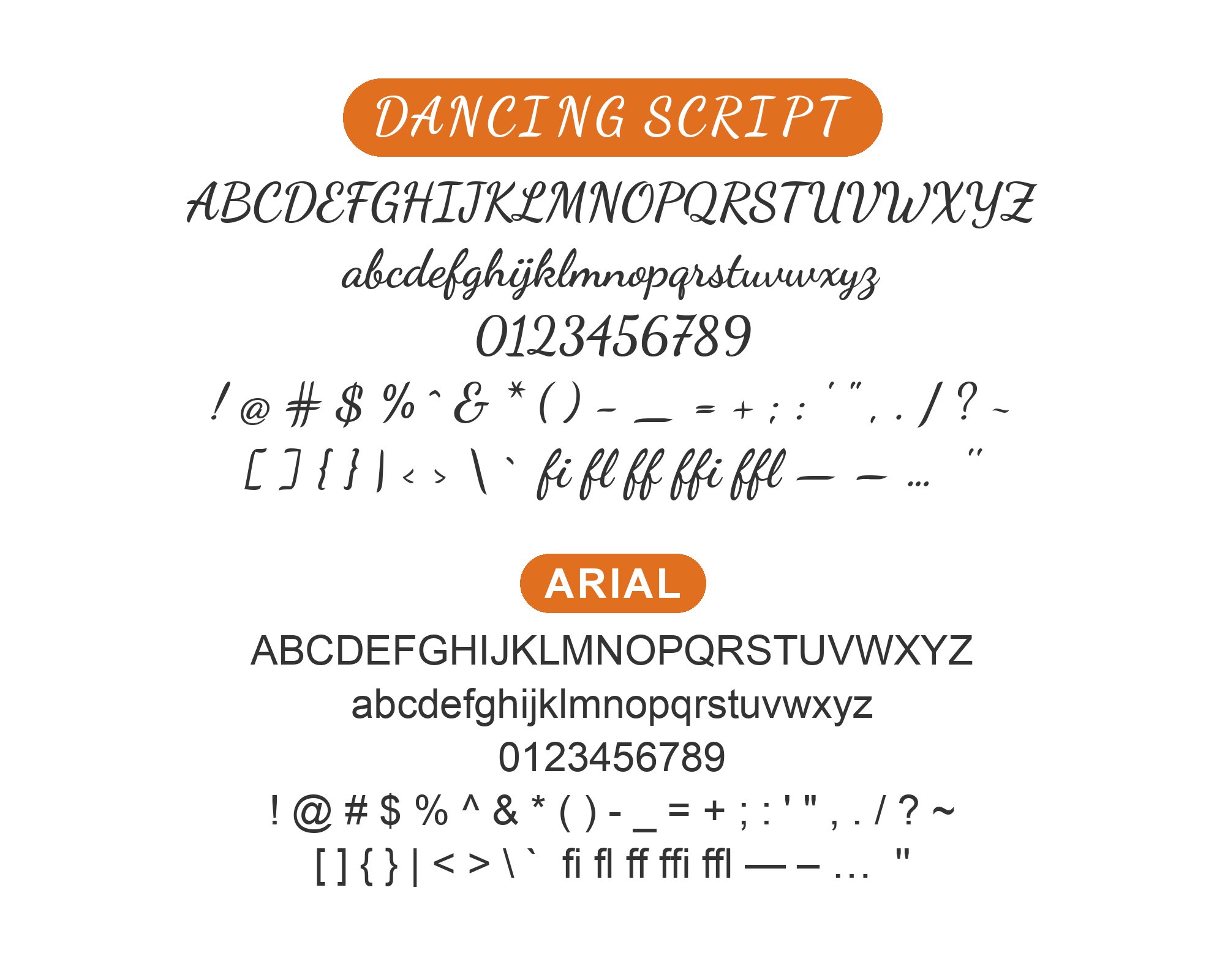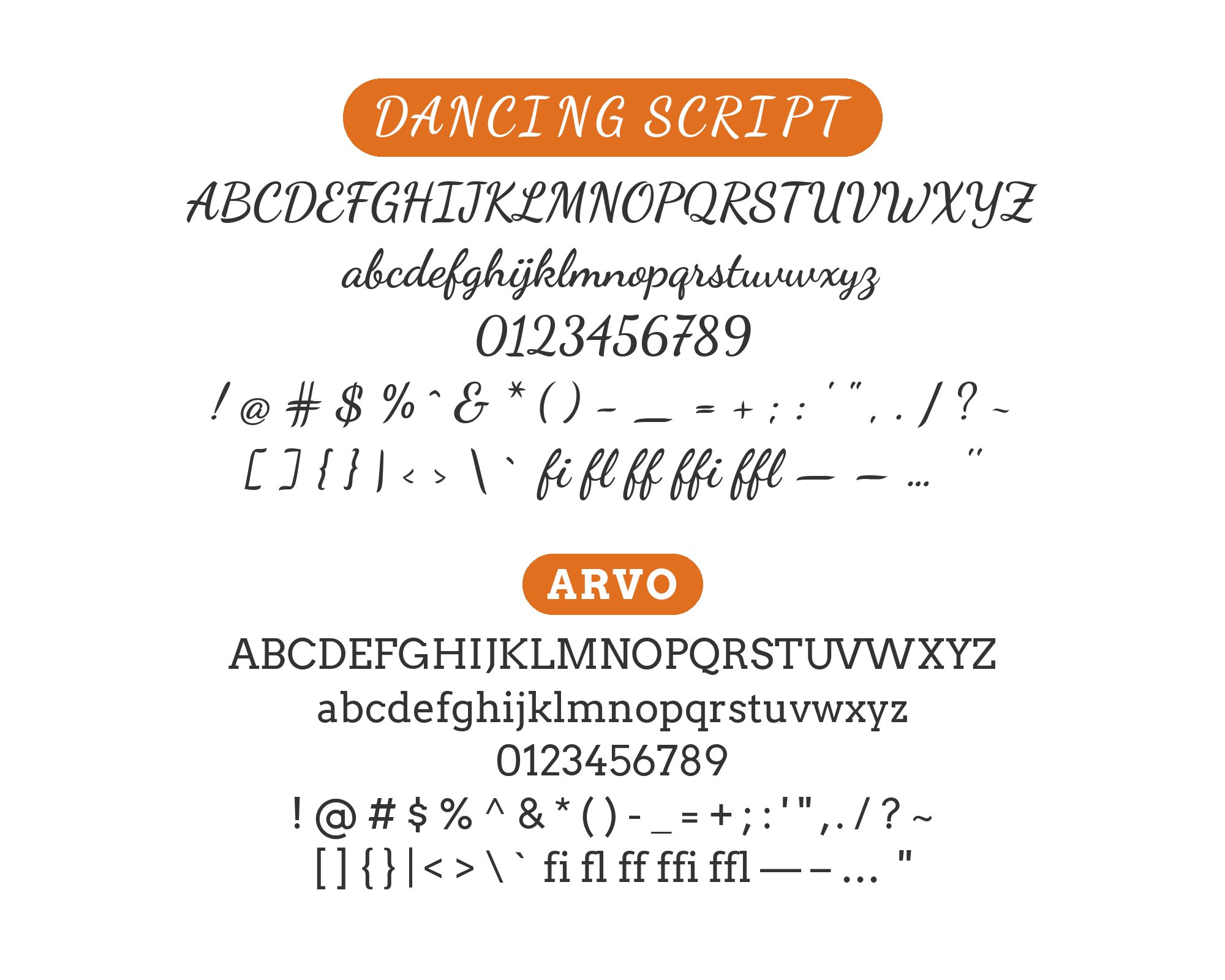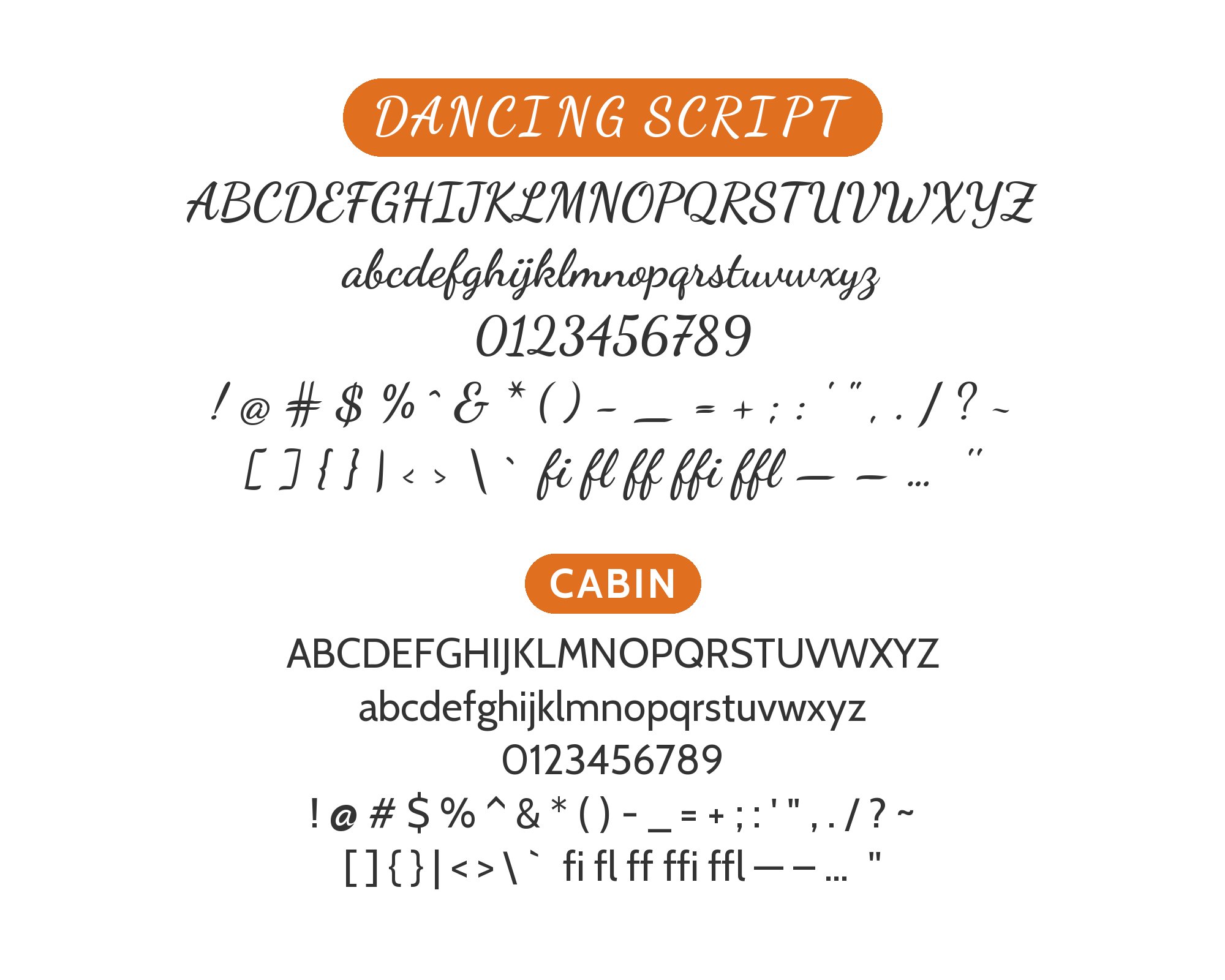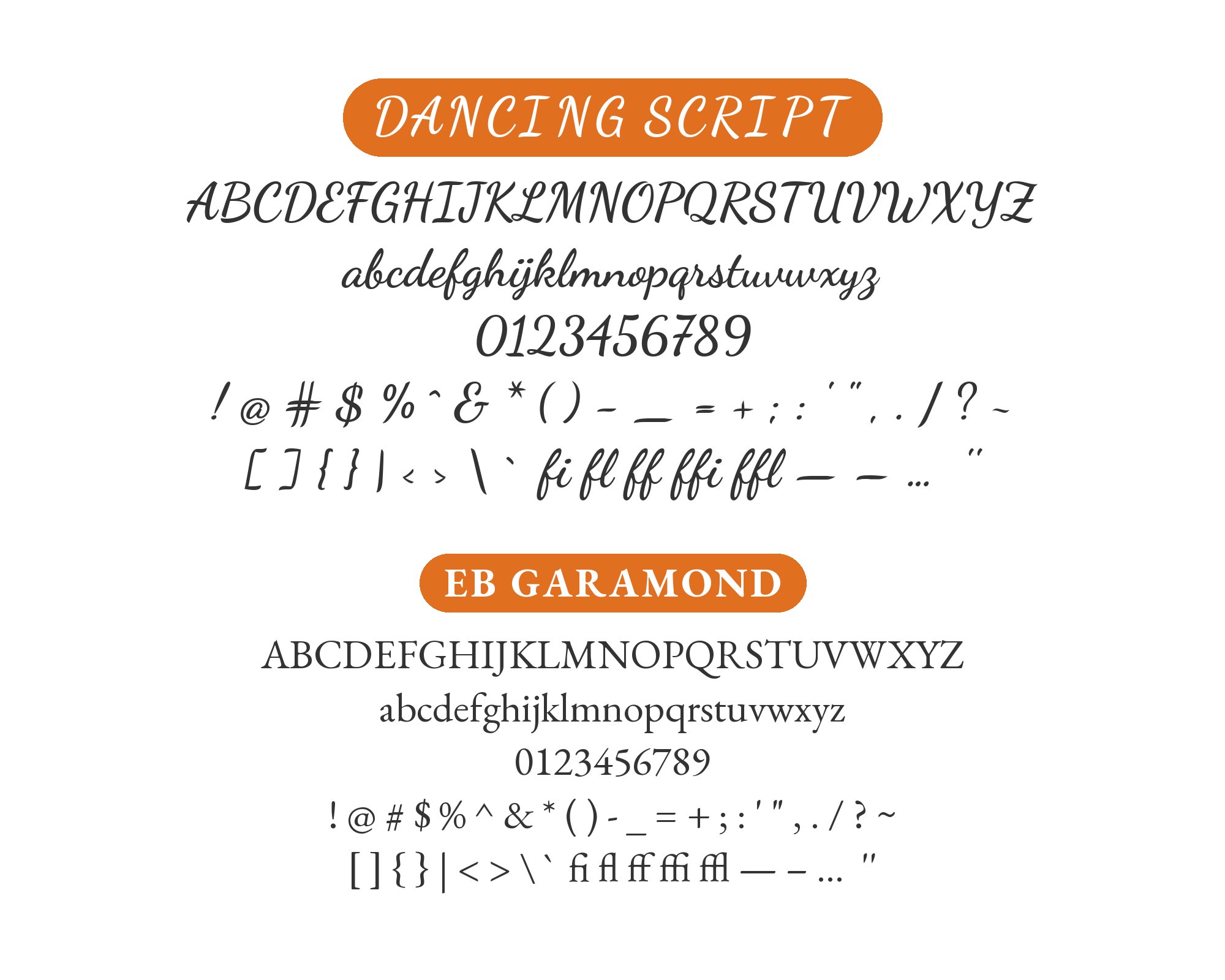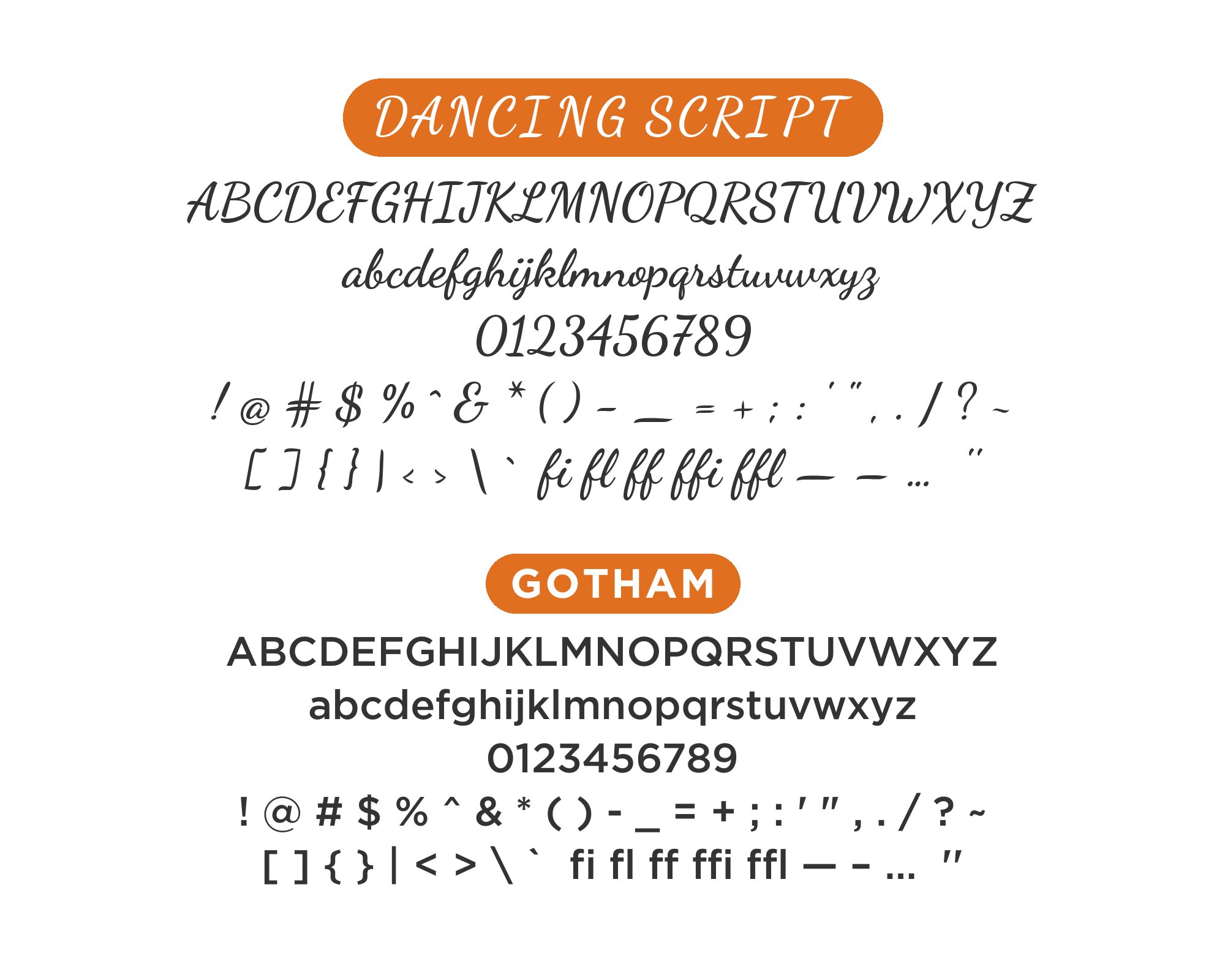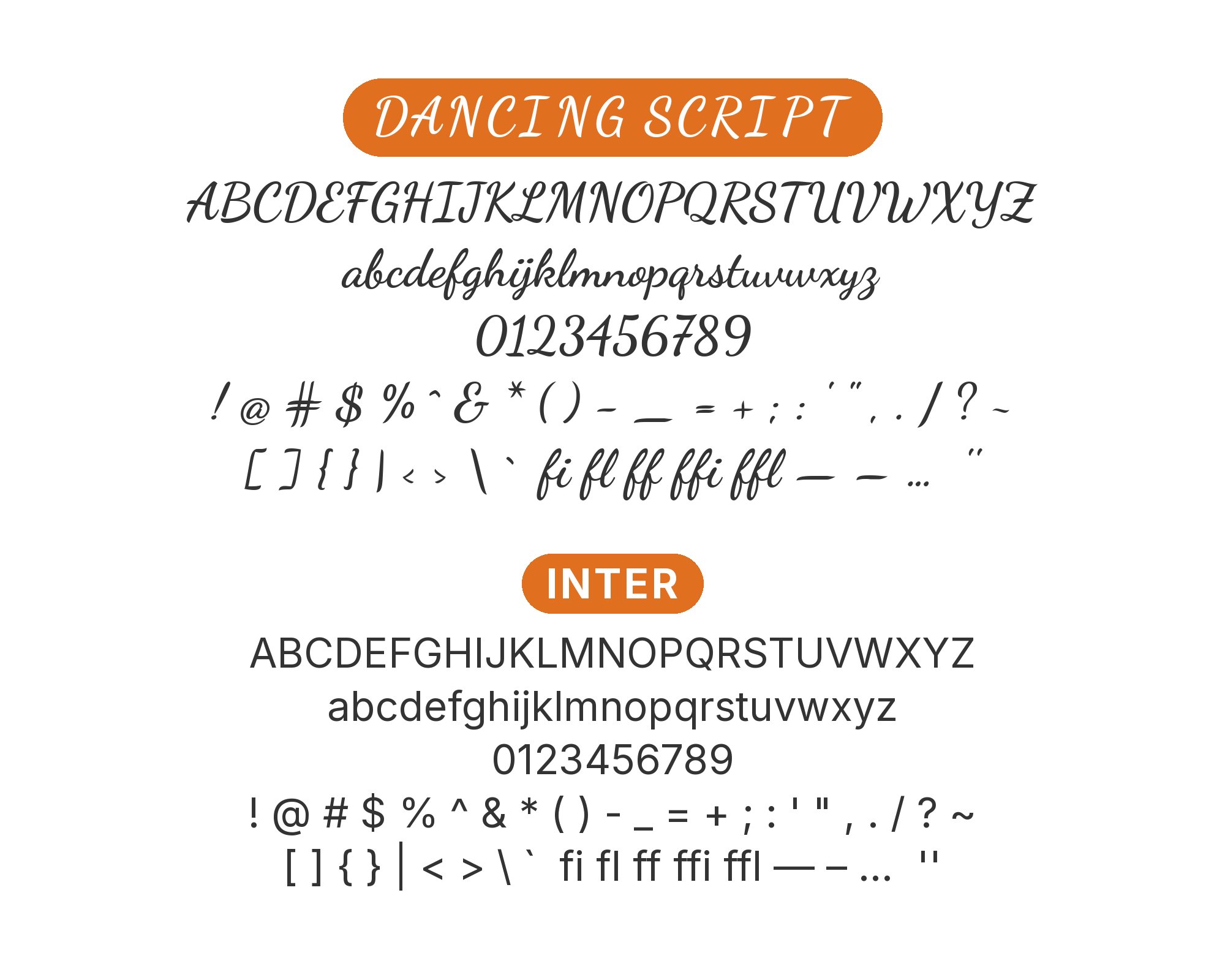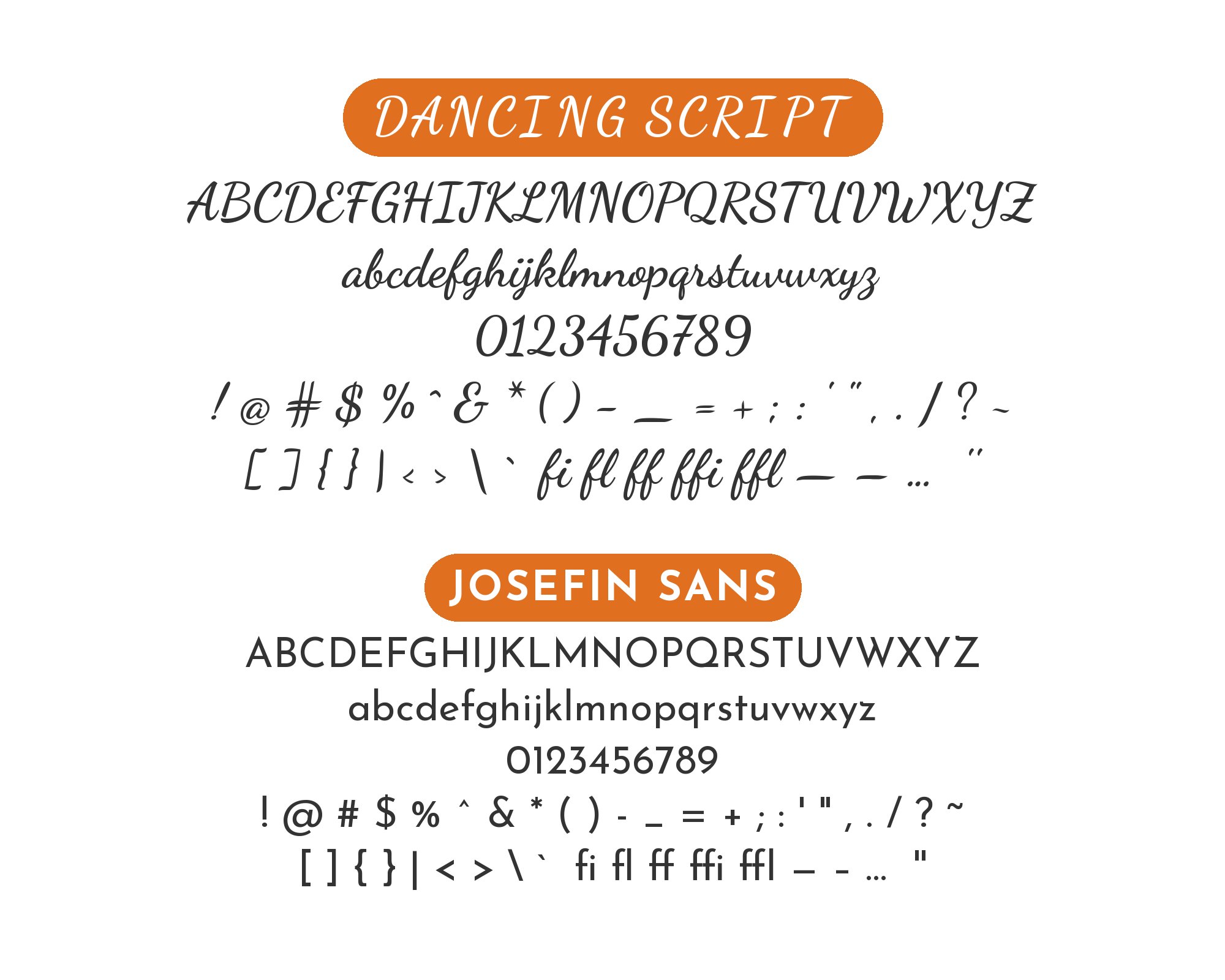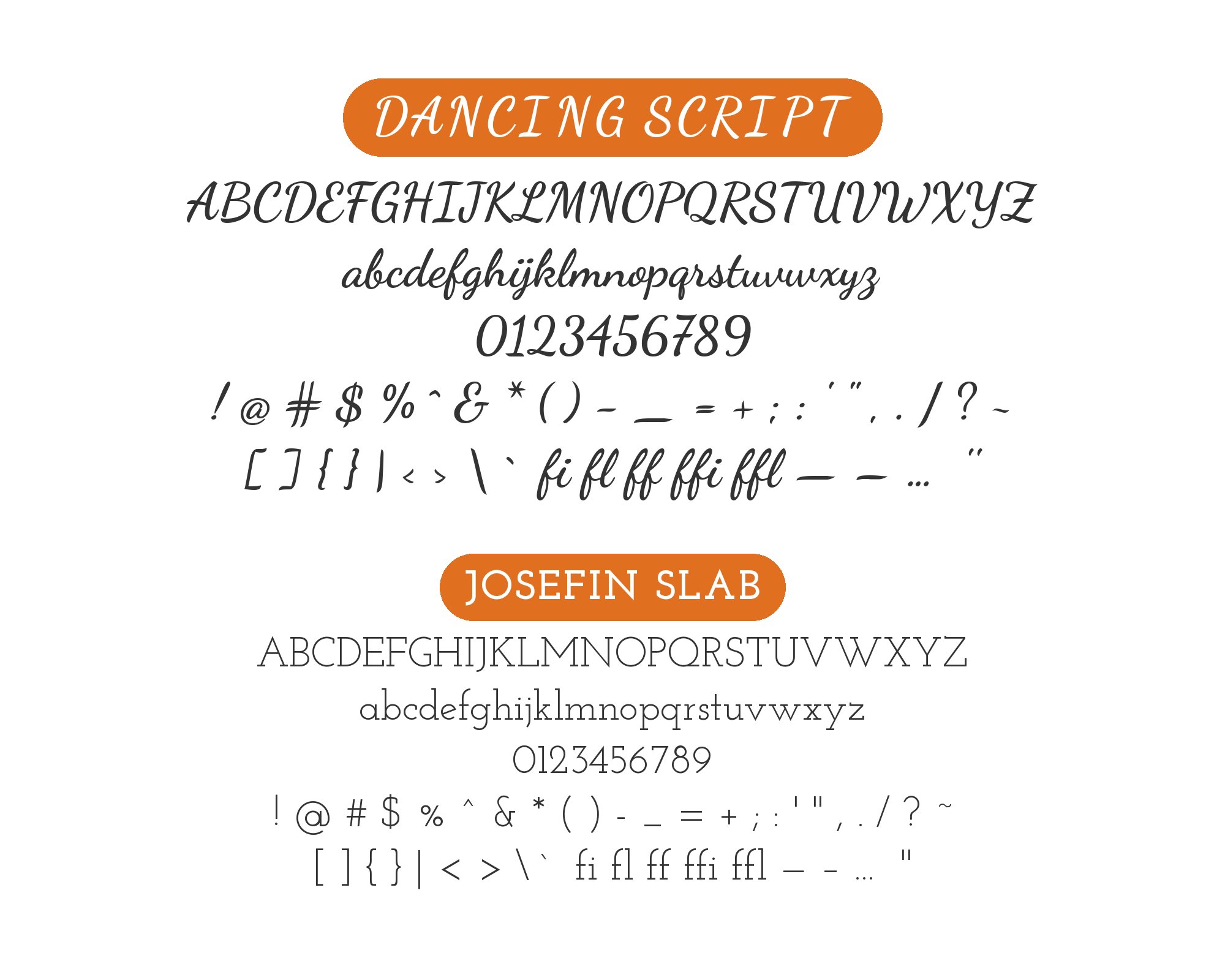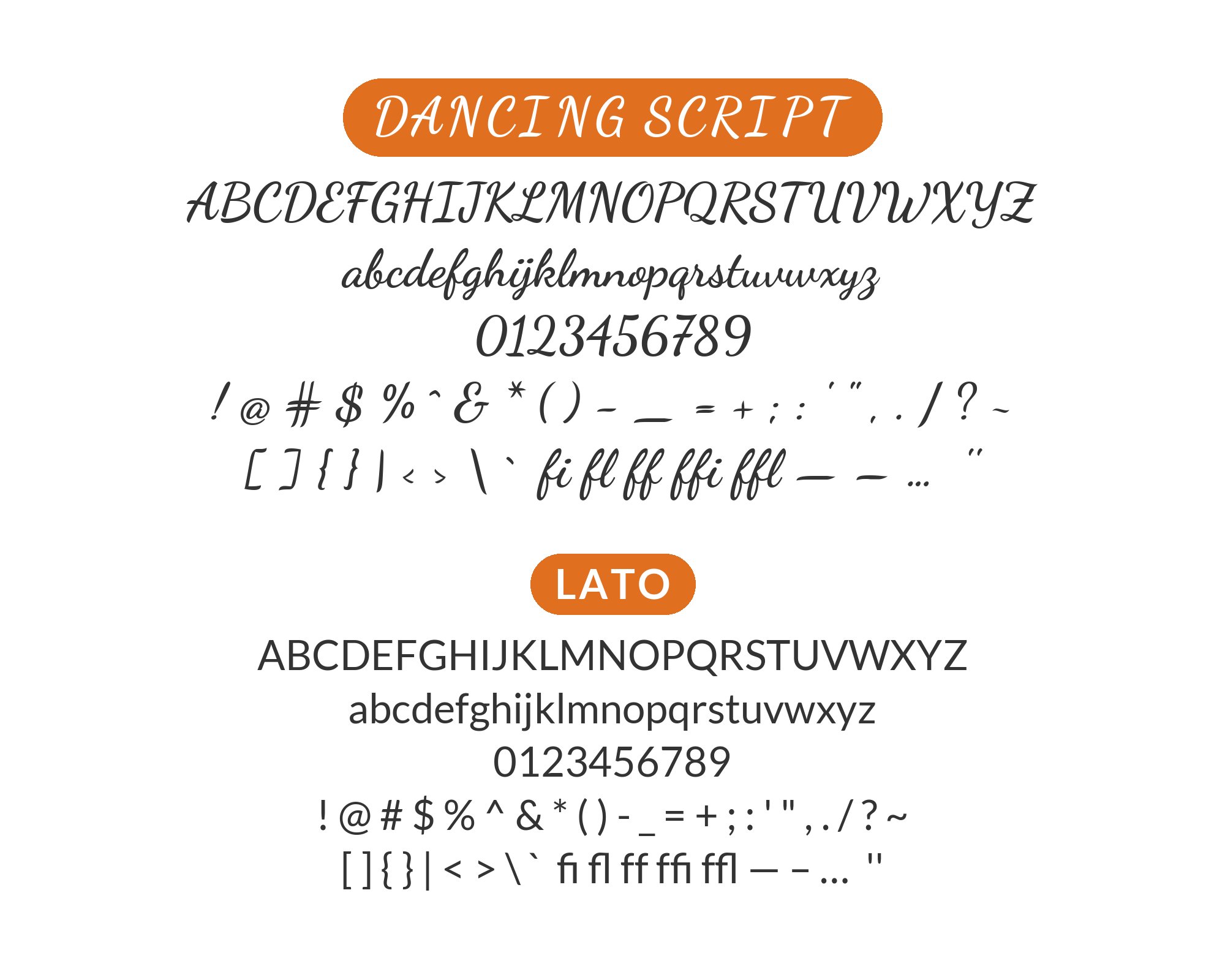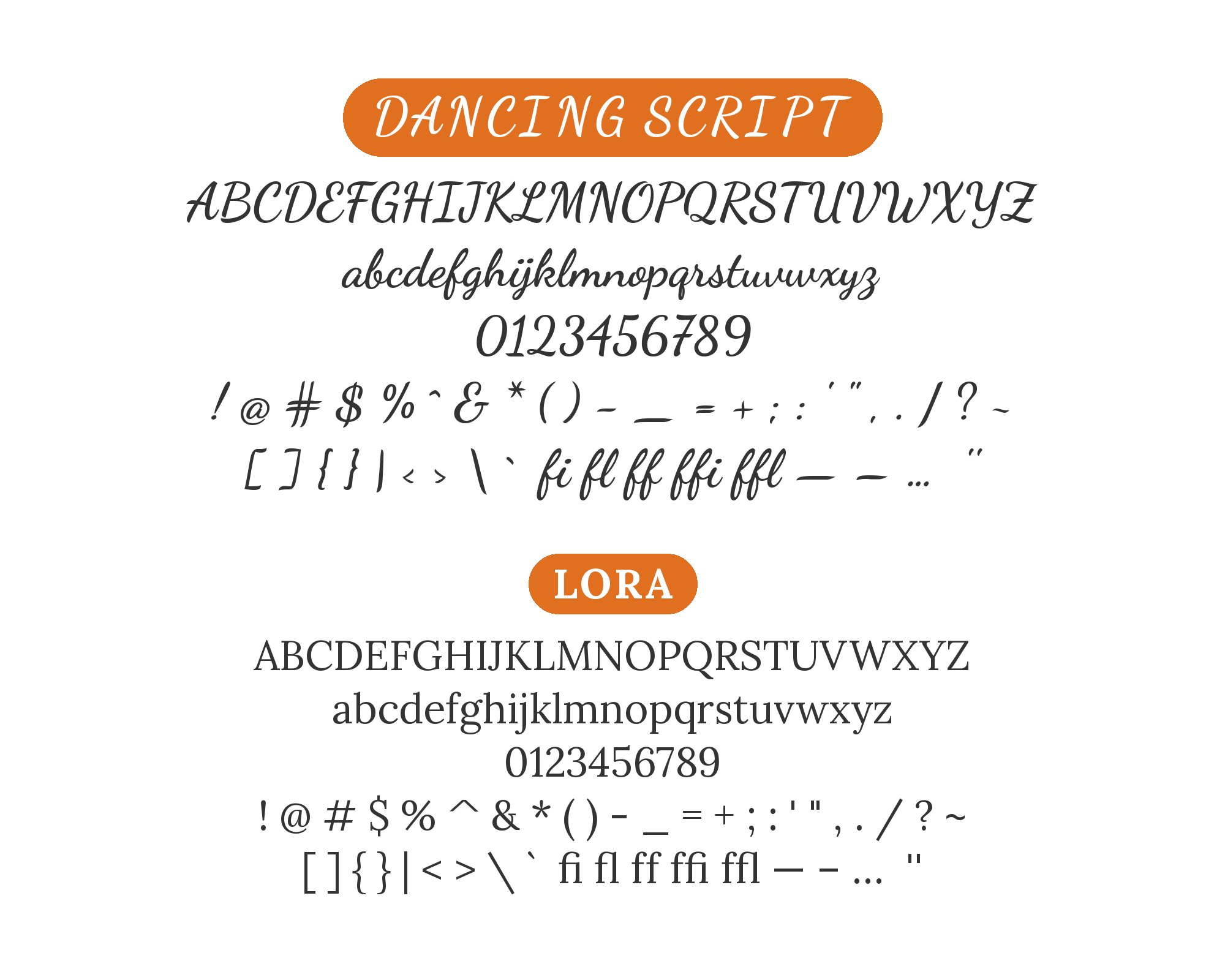
Dancing Script pairs great with Arvo, Josefin Slab and Cabin. All 15 pairings are shown below in real rendered specimens, with the reason each one works.
What fonts go with Dancing Script? Start by treating it as a signature, not a text face: a connected informal hand whose joins and bounce are the whole point, which means every partner has to do the reading Dancing Script will not do.
Impallari Type designed Dancing Script and Google Fonts added it in 2011 as a lively casual script whose letters bounce and vary slightly in size. The current Google Fonts family is a variable font spanning weights 400 through 700. Its connected forms work best in short display lines: logos, greetings, pull quotes and packaging. Set it at text size and the joins clog, the bounce flattens, and its charm becomes noise.
Pairing it is therefore a role split, not a family reunion. Independent pairing collections document the same broad formula: Dancing Script for the line that should feel written, and one quiet sans or book serif for everything else. The useful tests are x-height, aperture and weight: the partner must remain legible beneath a larger script, and the two faces should not both fight for display attention. Build the hierarchy with real copy before judging any combination. A two-word sample can make almost any script look graceful; an actual business name, date, price and paragraph expose collisions, awkward capitals and weak joins. Start with Dancing Script in one prominent line, add the partner at its intended reading size, and reduce the script’s role before adding a third family. Here are 15 fonts that pair well with Dancing Script, all obtainable and all documented.
1. Arvo
Anton Koovit designed Arvo, which Google Fonts added in 2010 with regular, italic, bold and bold italic cuts. It is a geometric slab suited to screen and print. That construction is the structural opposite of Dancing Script’s connected, informal hand: Arvo’s serifs are cut, not written, and its texture stays steady where the script’s baseline bounces. Typ.io records both on rtraction.com. Give Arvo headlines or short supporting lines where you need weight without another script; keep Dancing Script for the signature line only. Set the slab small enough that the script stays the largest thing on the page; once the two are within a step of each other, Arvo starts competing for the same job. The pairing suits studios, posters and any brand that wants handmade charm locked to a mechanical grid. If the brief is more invitation than industrial, Josefin Slab on this list is the period alternative.
Arvo works especially well when the layout itself is rigid: centered lockups, boxed labels and short blocks give its slab structure something to reinforce. Avoid crowding the script against an Arvo line. A clear band of space lets the contrast read as intentional rather than as two headlines accidentally touching.
2. Josefin Slab
Santiago Orozco designed Josefin Slab in the geometric tradition of the 1930s. Next to Dancing Script it supplies period geometry rather than informal handwriting: the slab’s thin, constructed serifs sit in a different register from the script’s bouncing joins. Typ.io’s rtraction.com sample runs both on one page. Use Josefin Slab for names, dates and details on invitations or packaging, and keep it optically large enough for its fine structure to remain visible. Invitations, café menus and boutique packaging are the natural brief: vintage structure under a casual hand.
This is the delicate slab option in the group. Proof it on the actual paper or display, because its fine strokes can lose presence while Dancing Script remains visually busy. When that happens, increase Josefin Slab’s size or weight instead of shrinking the script until both faces become equally timid.
3. Cabin
Impallari Type and Rodrigo Fuenzalida are credited for Cabin, a humanist sans inspired by the work of Edward Johnston and Eric Gill. Its soft terminals echo Dancing Script’s rounded joins without copying the connections, so body copy and labels feel related in temperature rather than construction. Typ.io documents Cabin on the same rtraction.com sample. Run Cabin for menus, captions and short about-text, and keep Dancing Script large enough that the joins still hold. Cabin Medium for prices and headers, Cabin Regular for the items, is enough hierarchy without pulling a third family. The pairing is the bistro formula: the script names the place, Cabin explains the hours.
Cabin is also forgiving when the supporting copy includes many short labels. Let its weight changes organize categories and prices, then reserve color or scale for Dancing Script. That keeps the script expressive without forcing it to solve navigation and hierarchy at the same time.
4. Arial
Robin Nicholas designed Arial at Monotype in 1982 for low-resolution laser printers; Patricia Saunders later helped develop it into a full family, and Microsoft licensed it for Windows 3.1. Its value under Dancing Script is practical. Arial recedes and will not fight a connected hand for attention, which is useful in email, Office documents and other constrained environments. Typ.io records Arial on rtraction.com beside the script. Use Dancing Script where you control rendering and let Arial cover the supporting text when compatibility matters.
The design move here is restraint. Arial should carry addresses, times and instructions with little ceremony. Give the script one controlled appearance near the top, and do not scatter it through every heading. Repetition turns a signature into decoration and makes the ordinary supporting type look accidental.
5. EB Garamond
Georg Duffner and Octavio Pardo are credited for EB Garamond, a digital interpretation of the Garamond tradition. That literary register is the point next to Dancing Script: instead of another casual hand, the page gets history. Think360 Studio explicitly lists Dancing Script with EB Garamond, assigning the script to headings and the serif to body text; Jukebox Print also names it among compatible partners. Set the script for titles and pull quotes, Garamond for paragraphs, and resist the urge to italicize Garamond into competition with the script’s already-sloped voice. The pairing suits editorial features, invitation suites and brands that want the greeting handwritten and the story set in type.
Watch the capitals in the actual title. A flamboyant initial in Dancing Script can dominate the quieter serif below, so the surrounding spacing matters as much as nominal font size. If the title feels top-heavy, shorten the script line before compressing or tracking it into a shape the letterforms do not want.
6. News Cycle
Nathan Willis designed News Cycle as a realist sans based chiefly on the 1908-era News Gothic. Its compact newspaper texture gives Dancing Script a firm editorial rail without adding a second decorative voice. Dance Studio Breakthrough explicitly presents Dancing Script and News Cycle as one of its twelve font pairs. Use the script for the studio name or event title and News Cycle for schedules, dates and supporting copy. The family includes regular and bold cuts, enough to build a compact hierarchy beneath the script. This pairing is especially useful when the design should feel energetic and direct rather than polished like an invitation suite.
News Cycle can make dense information feel narrower and more active, so it is a useful choice for flyers with many times or class names. Keep line lengths controlled and add space between groups. The compact sans should organize the information, while Dancing Script supplies the single moment of personality.
7. Inter
Rasmus Andersson released Inter in 2017 for on-screen readability, especially in user interfaces and at small sizes. That brief is the correct counter to Dancing Script’s decorative job. Brickylab explicitly presents Dancing Script with Inter for a wedding context, assigning the script to headings and Inter to readable body text; Jukebox Print also names Inter among compatible partners. The combination earns its place on product sites and portfolios where a handwritten logotype has to sit above buttons, forms and documentation. Keep a clear scale difference so the script reads as the display voice and Inter carries the interface.
Use Inter’s weight range to solve interface hierarchy without bringing Dancing Script into controls. Buttons, field labels and error messages need consistent shapes and spacing; the script can remain in the brand line or hero. This division keeps the expressive choice visible while protecting the parts people must scan quickly.
8. Merriweather
Merriweather is led by Sorkin Type and was designed as a text face for comfortable screen reading. Jukebox Print features Dancing Script with Merriweather in a display-and-body specimen, while ForgeDock independently lists the same pair as “Script Editorial.” The contrast is register: a sturdy serif body under a handwritten headline. Use it for blogs, newsletters and magazines that want a script kicker without sacrificing reading comfort. Merriweather Bold can carry subheads; keep its darkest weights away from the script so the two display voices do not compete.
This combination benefits from a quiet page. Let Merriweather establish the reading rhythm through consistent paragraphs and subheads, then use Dancing Script once at the opening or for a short pull quote. If every section receives a script heading, the editorial contrast disappears and the joins become a recurring obstacle.
9. Open Sans
Steve Matteson designed Open Sans, which Google Fonts added in 2011. Its upright stress, open forms and neutral humanist construction let it stay clear beneath Dancing Script. UtilityCove explicitly lists Dancing Script with Open Sans among its curated Google Font pairings. Hand Open Sans the body copy, navigation and forms, and save the script for the single line that should look signed. SemiBold for navigation and Regular for paragraphs are enough hierarchy without a third display face.
When the brand needs to feel friendly across many screens, this is the safest place to begin. Test the smallest supporting copy first, then size the script by eye above it. The hierarchy should survive in grayscale; color can reinforce the roles, but it should not be the only reason they look different.
10. Lato
Łukasz Dziedzic started Lato in 2010. Its softly rounded humanist details provide a bridge to Dancing Script’s warmth while its conventional text forms remain easy to scan. ForgeDock curates Dancing Script with Lato as an “Elegant Script” pairing. Reach for Lato when the brand should sound human rather than technical, and keep the script off any sentence longer than a few words. Lato Light can take secondary headlines when the script remains the dominant voice. Personal brands and hospitality work are natural settings for the combination.
Because both faces can feel approachable, hierarchy has to come from role and scale rather than contrast alone. Use Lato for repeated patterns such as menu sections, service lists and captions. Keep Dancing Script rare enough that it still signals a name, welcome or personal note when it appears.
11. Montserrat
A published school identity manual recommends Montserrat for the main corporate typography and Dancing Script as the handwritten alternative. Montserrat’s broad geometric capitals and stable lowercase create the structural frame; the script can then mark a motto, personal message, or celebratory phrase. Use Montserrat for headings, body, and navigation at a controlled range of weights, and let Dancing Script appear only where the voice should change. The sans has enough width to balance the script without imitating its curves. This pairing fits education, community events, and social campaigns where official information must remain clear but a warmer note should feel visibly authored rather than typeset.
12. Roboto
The published Creator archetype guide specifies Dancing Script with Roboto. Roboto’s neutral screen texture provides a dependable body and interface layer while the script contributes one lively, human statement. Keep Dancing Script large enough for its joins to read clearly, then use Roboto Regular for paragraphs and Roboto Medium for buttons or labels. The pair does not need additional decoration; the category contrast already establishes the hierarchy. Avoid bold Roboto headings directly beside the script, since two strong display voices will compete. This combination works for family albums, creative portfolios, small businesses, and campaign graphics where a handwritten top line should feel approachable but every practical detail must remain fast to read.
13. Lora
The published Magician archetype guide specifies Dancing Script with Lora. Both carry calligraphic warmth, but they operate at different tempos: Dancing Script supplies the lively signed line, while Lora settles into a stable serif rhythm for reading. Keep the script on a short headline, name, or quotation and let Lora handle paragraphs and secondary headings. Their curves can feel overly soft if the sizes are close, so create a clear scale gap and keep body weight moderate. The combination suits invitations, personal essays, cultural events, and hospitality work where warmth should continue through the text rather than stopping at the headline. A neutral color palette helps the change in structure do the work.
14. Josefin Sans
Design Shack pairs Dancing Script headlines with Josefin Sans body copy, using the script for emotional emphasis and the thin geometric sans for the readable layer. Josefin Sans’s tall capitals and narrow glyph width leave generous white space around Dancing Script’s loops, while its straight stems make the handwriting feel more intentional. Avoid the lightest Josefin weights below comfortable reading size; the contrast can become too fragile beside a bold script line. This pairing works best for invitations, lifestyle branding, and landing pages where the script appears once and Josefin Sans carries navigation, details, and supporting paragraphs.
15. Gotham
Color Street’s published brand guidelines place Dancing Script in the same typography system as Gotham, reserving the script for casual titles and Gotham for body copy and smaller headlines. Gotham’s broad geometric proportions create a stable block beneath the script’s changing baseline, and its weight range can establish hierarchy without asking Dancing Script to do more work. Keep the script large and brief, then use Gotham Regular or Book for the practical information. The combination suits promotions, event graphics, and retail materials where one line should feel spontaneous while prices, dates, and instructions remain crisp and immediately scannable.
Dancing Script is a display hand, and every pairing that works treats it that way. The Typ.io sample is a single live stack, but it already shows the pattern: a slab or a quiet sans underneath, never a second script. Independent sources support the same split — EB Garamond or Merriweather when the page needs to read like a book; Inter, Open Sans, Cabin, News Cycle or Lato when it needs to work like a site. Arvo and Josefin Slab are the structured alternatives when the script needs a mechanical or period grid rather than a humanist paragraph.
Set the script large, where the joins hold, and judge the partner at the size it will actually ship. If Dancing Script still reads as the signed line once the body copy has landed around it, the pairing is doing its job. If you find yourself setting paragraphs in it, you have the roles backwards. Two scripts on one page is almost always a conflict; one script and one reader is the system.